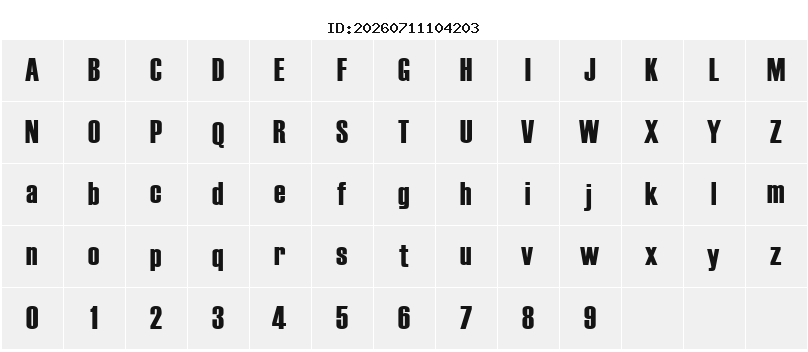
• Font Name: Haettenschweiler
• Description: Haettenschweiler derives from a more condensed typeface, called Schmalfette Grotesk, first shown in the early 1960s in a splendid book called Lettera by Walter Haettenschweiler and Armin Haab. Schmalfette Grotesk was a very condensed, very bold alphabet of all capitals – schmalfette means "bold condensed" in German, and grotesk indicates it is without serifs. It was immediately picked up by designers at Paris Match who cut up pictures of it to make headlines. Soon everybody wanted it. In due course, extra-bold extra-condensed faces for families like Helvetica began to appear, looking remarkably like the original Schmalfette. Photoscript had made a lowercase version quite early on. Later, they made a less condensed version and called it Haettenschweiler Extended as a tribute to a designer whose idea so greatly affected the graphic scene in the second half of the century. Use this distinguished face in large sizes for headlines.
Haettenschweiler.ttf is a modern, elegant sans-serif font designed for ultimate readability and visual harmony. Perfect for branding, headlines, web design, and print materials.